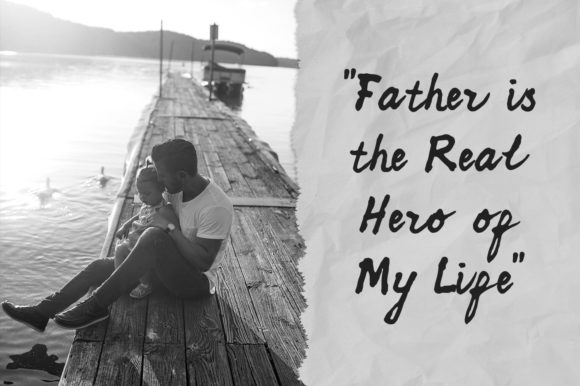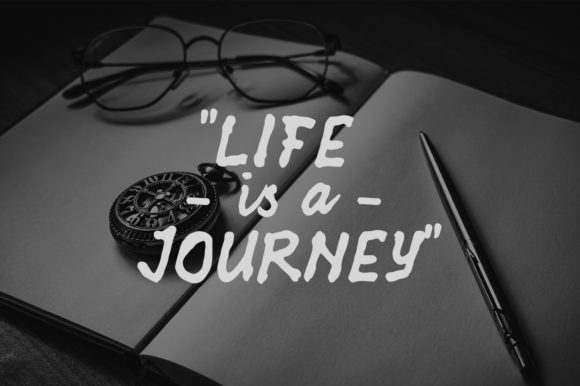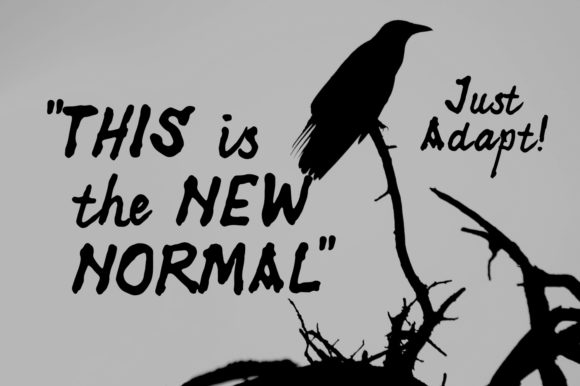
Introduction to Fatherhand Font
Fatherhand feels equally charming and elegant.
Whether it’s for web, print, moving images or anything else this handwritten font will look spectacular .
Fatherhand Font offers exceptional quality and versatility, making it a valuable addition to your design toolkit. Whether you’re creating for personal projects or commercial use, Fatherhand Font delivers professional results.